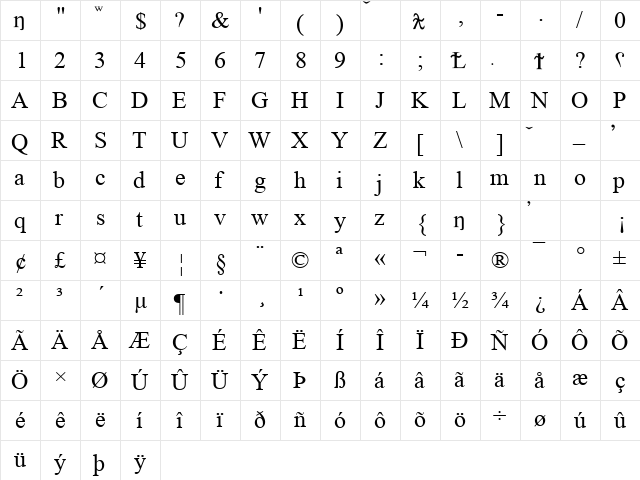
Nuu-Chah-nulth Regular
Design Context for Nuu-Chah-nulth Typeface
Nuu-Chah-nulth offers clean, dependable letterforms without strong stylistic allegiance, making it a practical choice for designers who need flexibility.